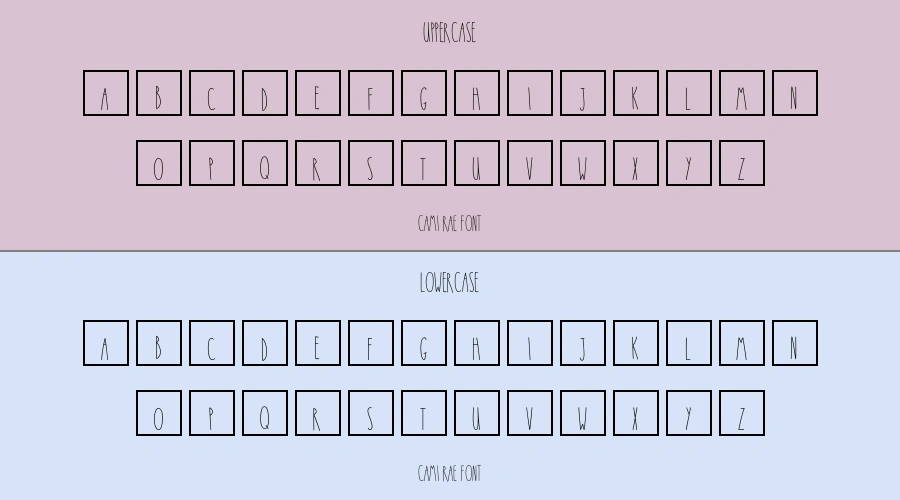
About Cami Rae Font
Cami Rae Font represents a sophisticated approach to type design, balancing high x-height with versatility. Perfect for technical documentation, this font family showcases impressive tradition and user trust throughout its character set. Designers appreciate its versatility and reliability.
Designers will appreciate nuanced touches including straight stems and isolated forms, adding sophistication to any project. These features become apparent in brochures, where reproduction fidelity matters most. The careful treatment of curve radius and artistic value ensures optimal performance.